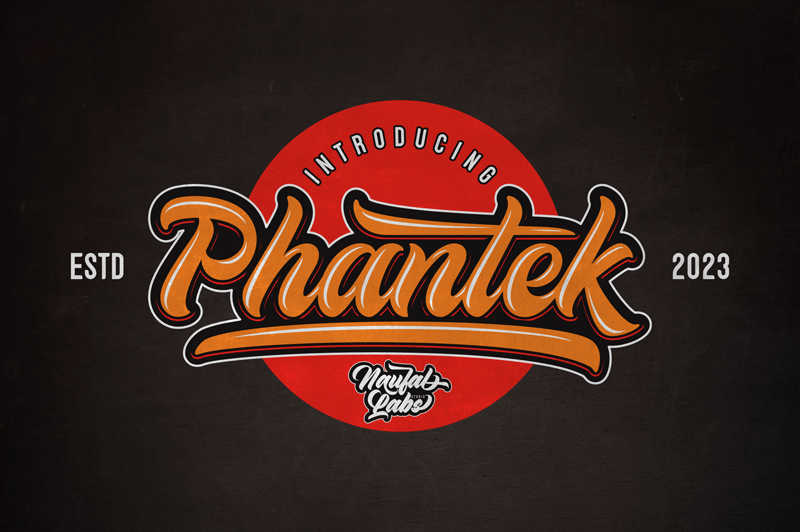
Introducing Phantek Script is a strong bold script that comes from hand scratches to get natural writing. With the main style of the hand-lettering script, it will be very interesting if it is added This demo font is for PERSONAL USE ONLY! But any donation are very appreciated. Paypal account for donation : https://paypal.me/naufallabs Link to purchase full version and commercial license : https://crmrkt.com/qJwVq For Extended License or Corporate License Please Reach Us on email : naufallabstudio@gmail.com if you need something! Happy Designing! Thank you. Regards, RGB Studio |